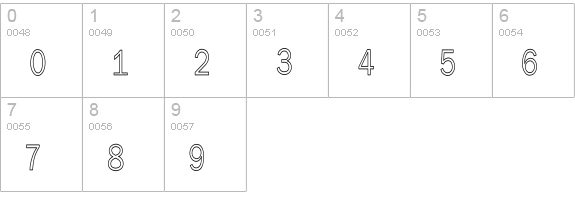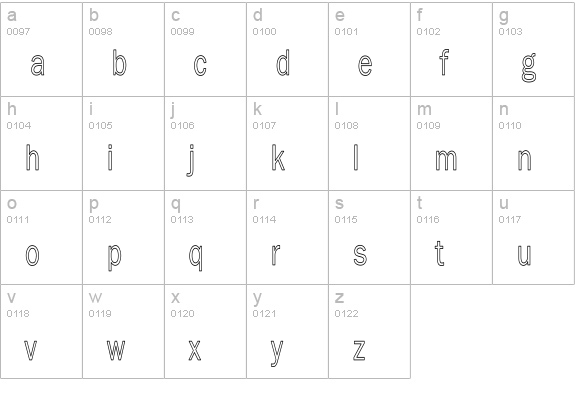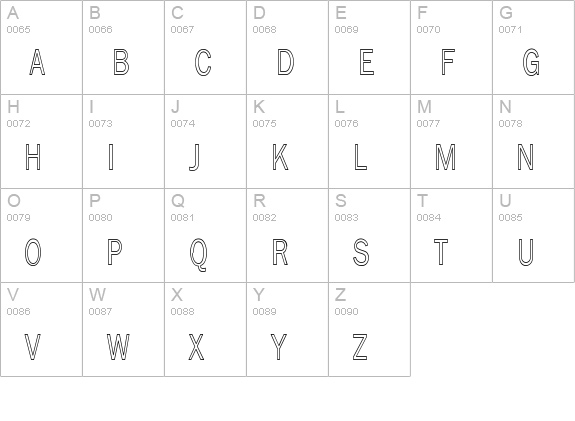
FranklinGothi2HC Font Details
FranklinGothi2HC is a modern and versatile font that strikes the perfect balance between elegance and readability. This typeface features clean lines and a timeless aesthetic, making it suitable for a wide range of design projects. With its sleek design and classic appeal, FranklinGothi2HC is sure to make a statement and elevate any design it is used in. The best part? FranklinGothi2HC is available for free download at FontsMarket.com. You can easily access this sophisticated font and enhance your projects with its professional touch without any cost. Whether you're working on a branding project, editorial design, or any other creative endeavor, FranklinGothi2HC is a valuable addition to your font collection. Don't miss out on the opportunity to elevate your designs with FranklinGothi2HC - download it now for free and unleash your creativity!